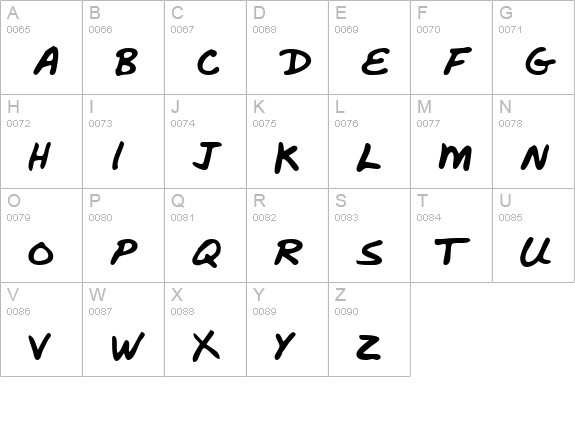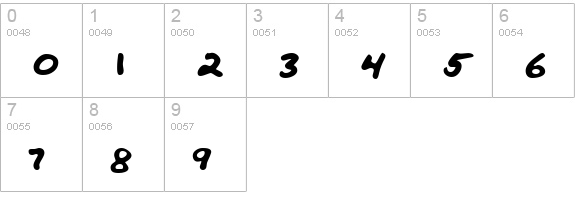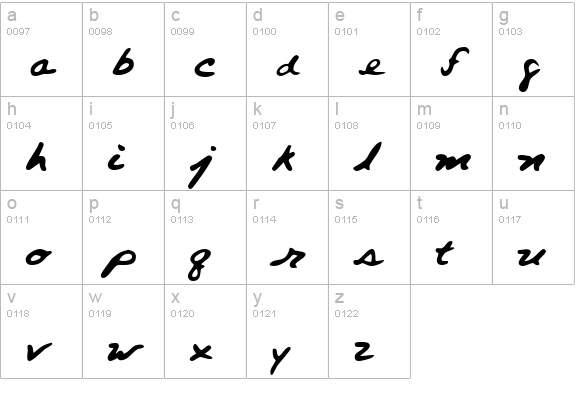
SergesHand Regular Font Details
SergesHand Regular is the standard, neutral variant in the SergesHand typeface family \xE2\x80\x94 well suited to general body text, paragraphs, and standard typographic work.
Introducing SergesHand Regular, a delightful and captivating font that effortlessly adds a touch of whimsy and elegance to any project. This typeface is crafted with utmost care and attention to detail, ensuring a seamless and smooth reading experience for all. SergesHand Regular exudes a unique charm, with its graceful curves and playful strokes that effortlessly capture the essence of handwritten elegance. Its versatility is truly remarkable, making it an ideal choice for a wide range of designs, from invitations and greeting cards to logos and branding materials. What makes SergesHand Regular even more remarkable is that it is absolutely free! Yes, you read that right – this incredible font can be freely downloaded at FontsMarket.com. With just a few clicks, you can enhance your designs with this beautiful typeface, without having to worry about any additional costs. Whether you are a professional designer or a passionate hobbyist, SergesHand Regular is a must-have in your font collection. Its versatility, elegance, and availability for free make it an unbeatable choice for any project. So why wait? Head over to FontsMarket.com and download SergesHand Regular today to unlock a world of creative possibilities.